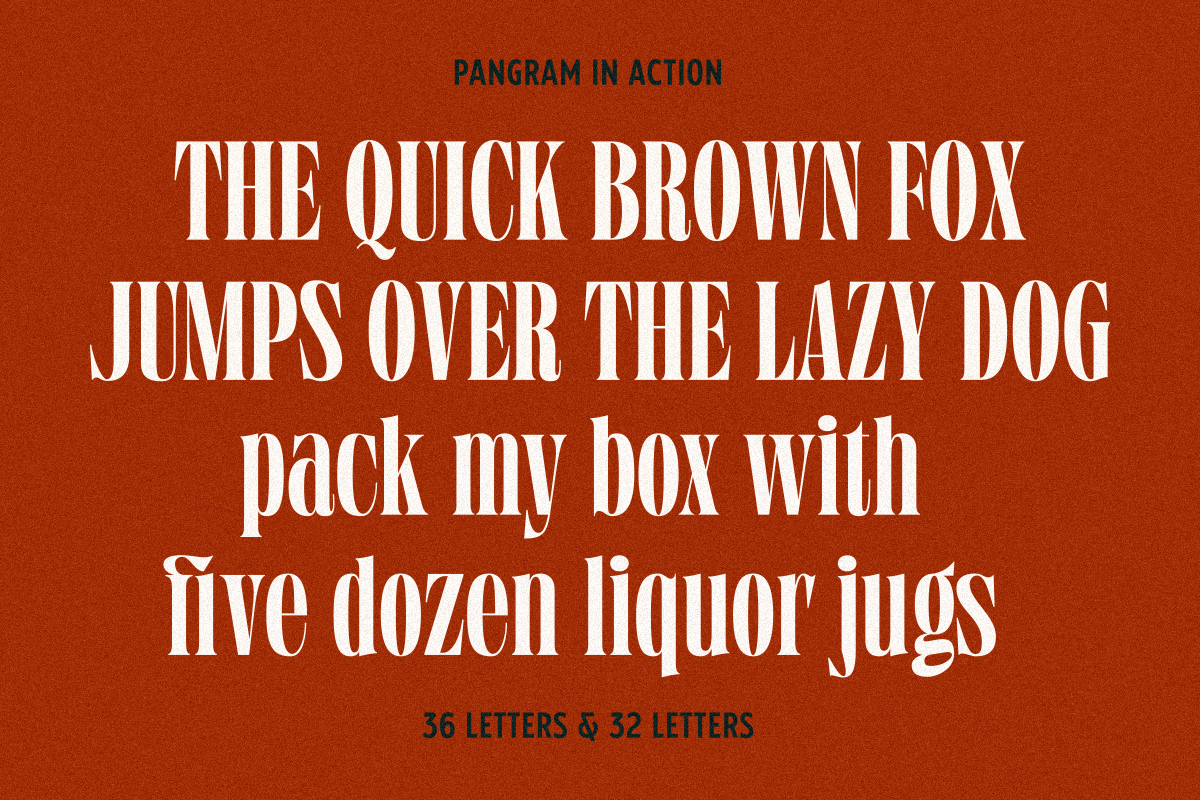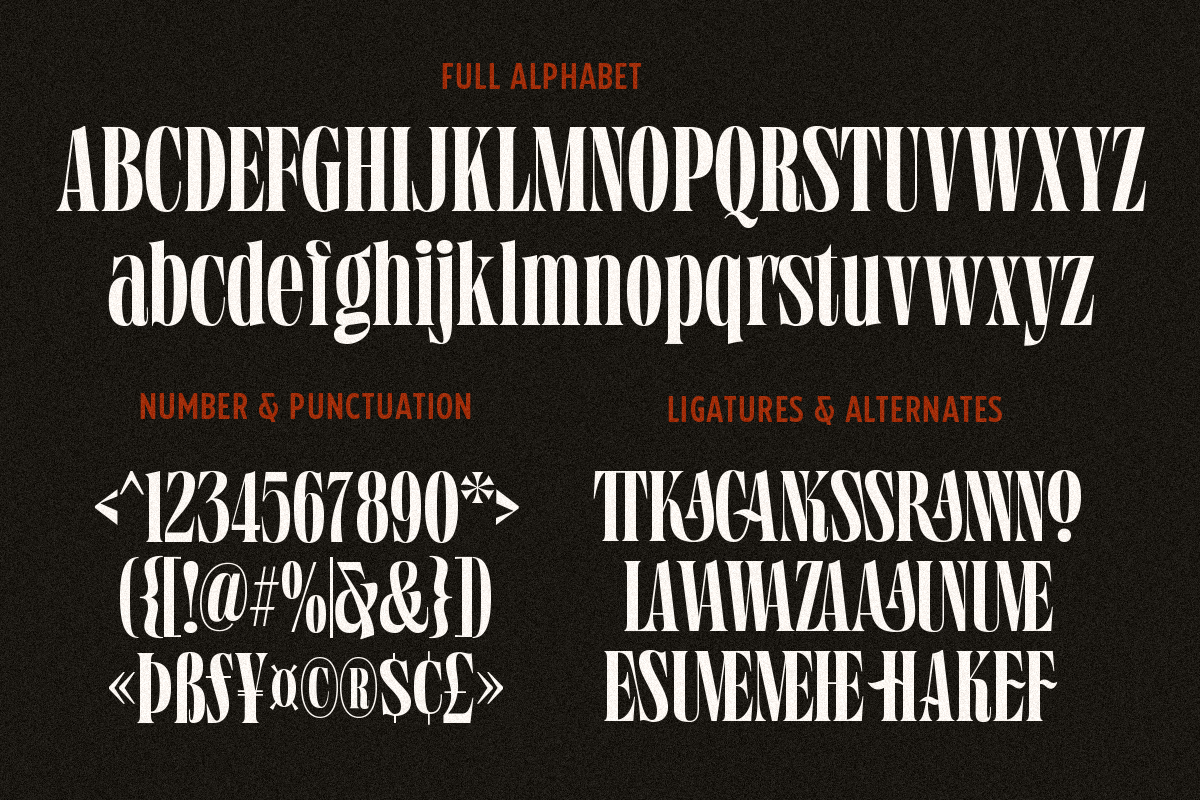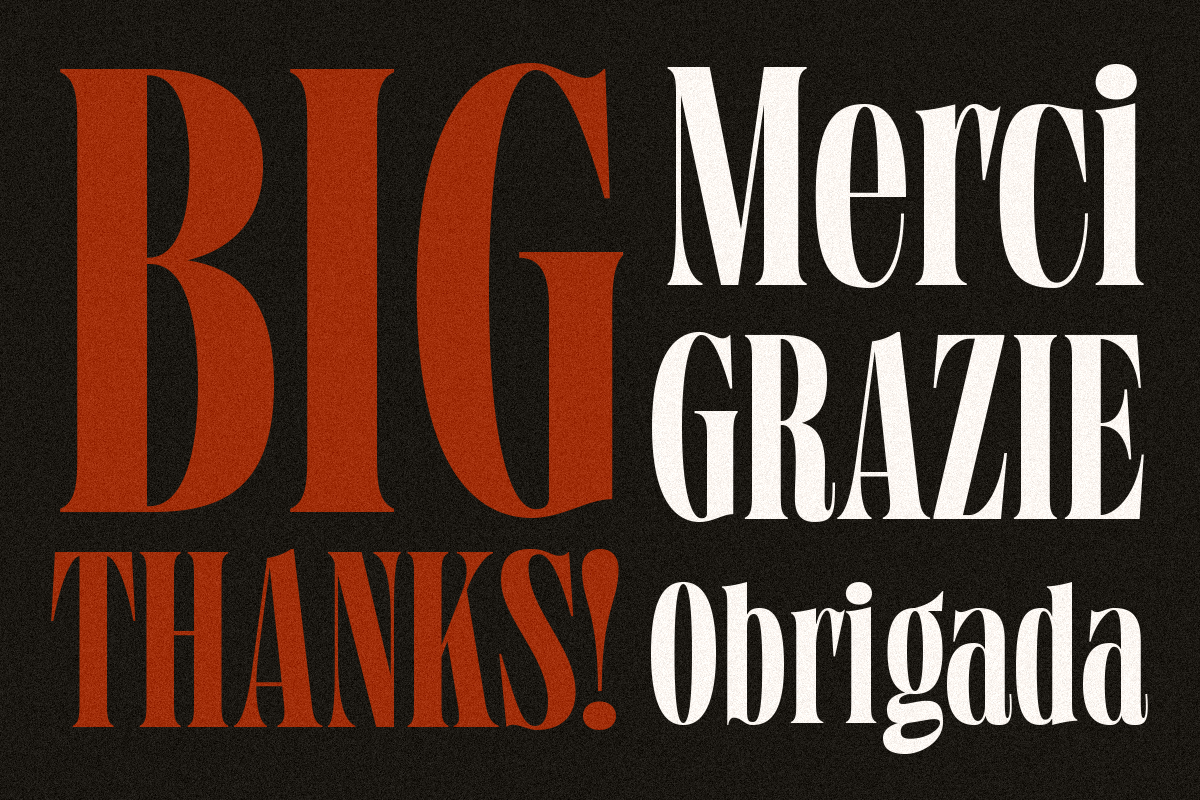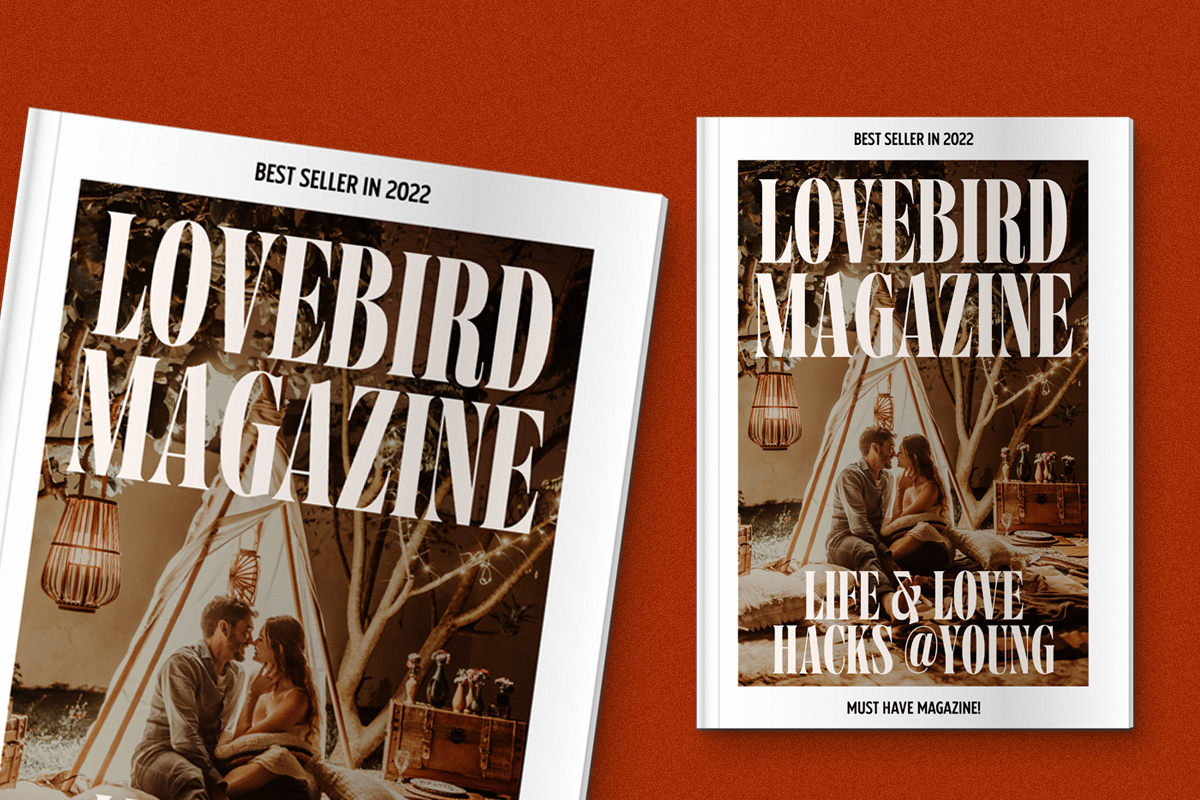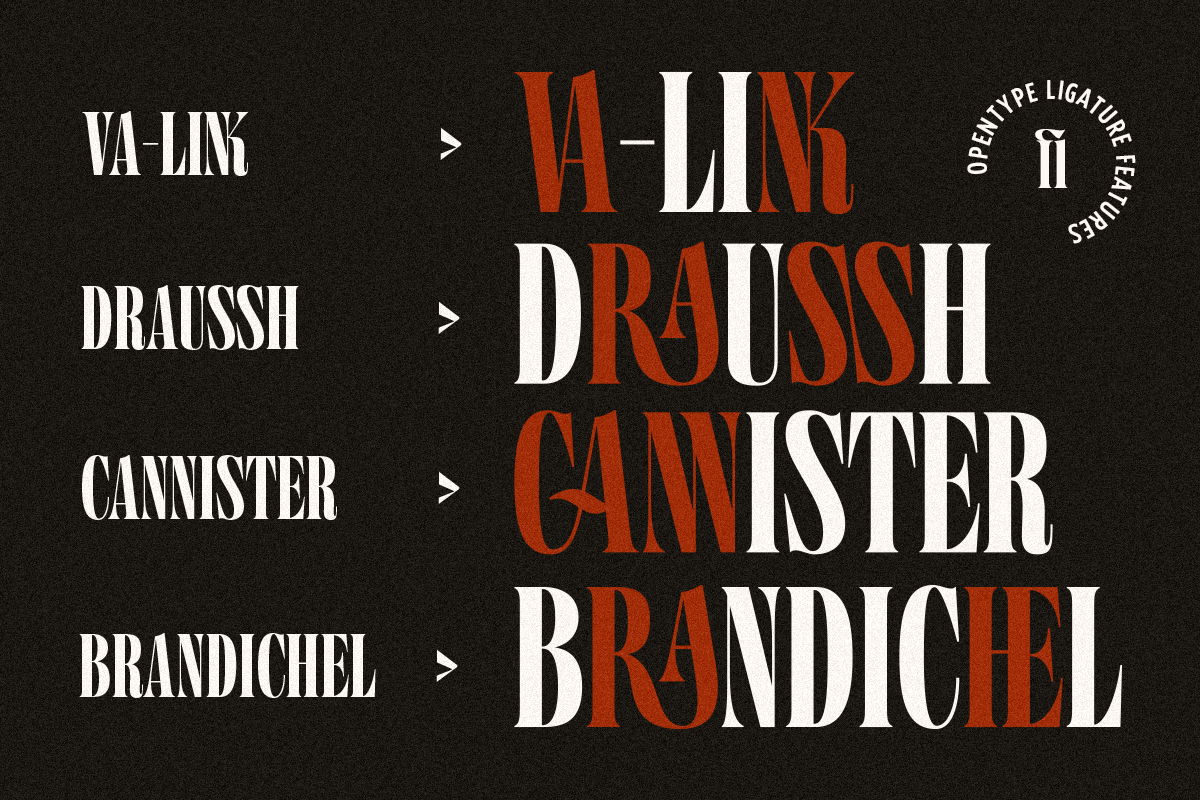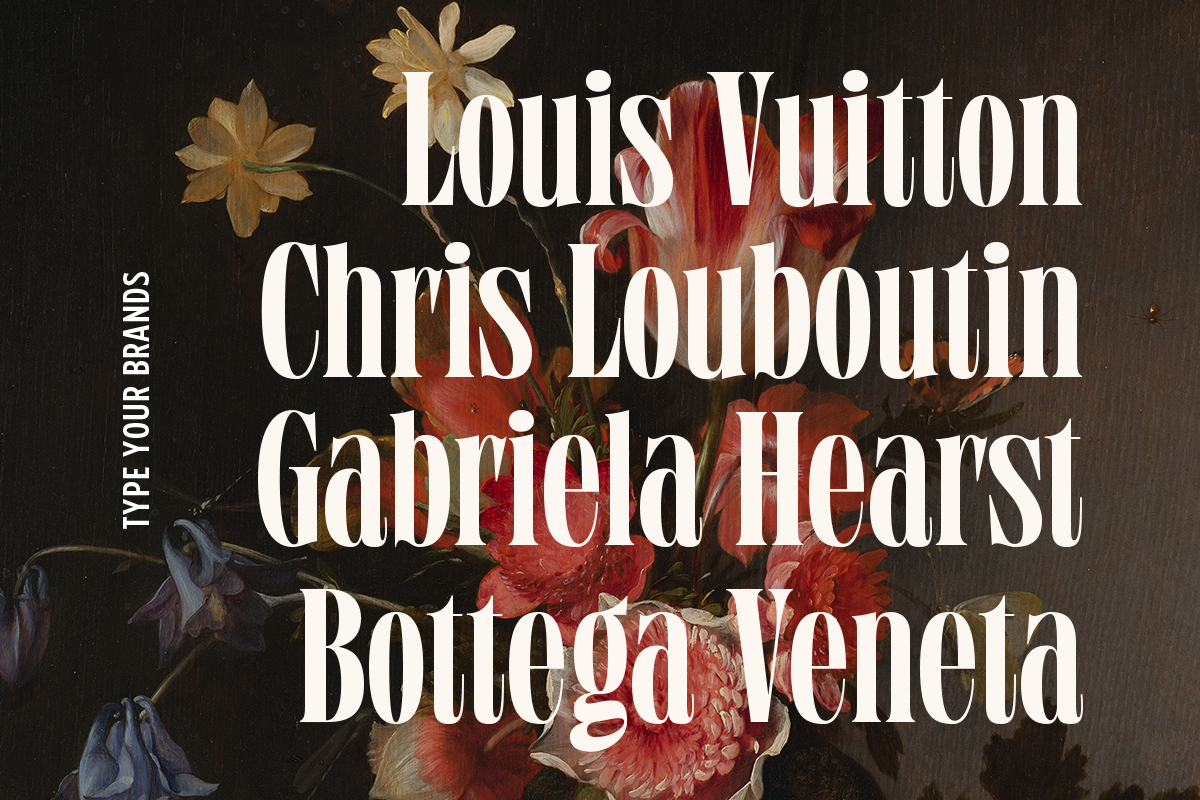
Grischel Condensed Serif Display
Grischel Is a condensed serif font that comes with tall style for display purposes to make it satisfying, also suitable for minimalist, chic, branding, packaging and merch design to boost your design exploration.
Multilingual Support support many different languages 20+